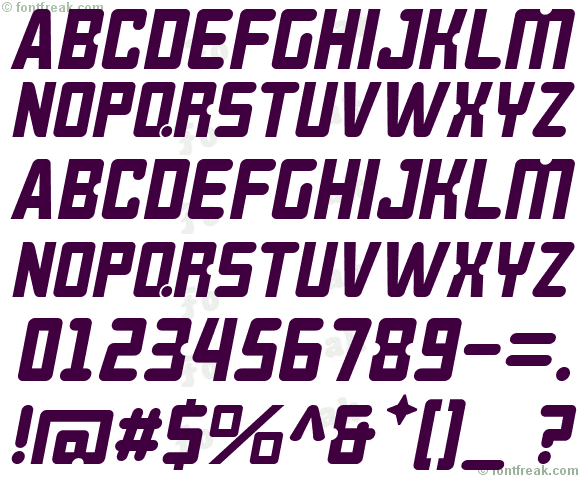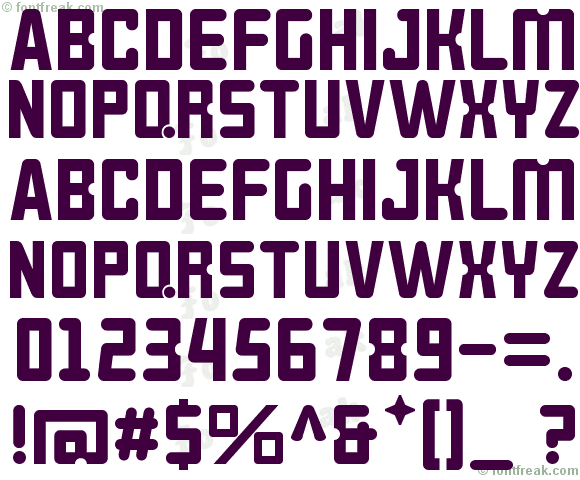
BROKEREN
BROKEREN MIRING Italic
BROKEREN, designed by Situjuh Nazara in 2013, is a striking display font that captures attention with its bold, geometric forms. This sans-serif typeface stands out due to its strong stroke weight and minimal contrast, making it an excellent choice for various design applications. The font features clean lines and a modern aesthetic, with narrow spacing that adds a sleek touch. Its unique character shapes lend a sense of dynamism, making it suitable for both headlines and short texts.
BROKEREN can be effectively utilized in a variety of contexts. Its commanding presence makes it ideal for movie posters, where it can convey a sense of excitement and intrigue. Additionally, this font works well in branding materials for small businesses, particularly those wanting to establish a contemporary, professional image. It is also a perfect fit for restaurant menus, offering a modern flair that can enhance the dining experience. For graphic designers and content creators, BROKEREN presents an opportunity to create visually compelling presentations or social media graphics that capture the viewer's interest.
What sets BROKEREN apart is its ability to blend simplicity with boldness, creating a memorable typographic statement. This font is not just another display typeface; it embodies a modern spirit that can transform ordinary text into extraordinary visuals. Whether you're designing a logo or a promotional poster, BROKEREN offers the versatility and impact needed to make your project stand out.